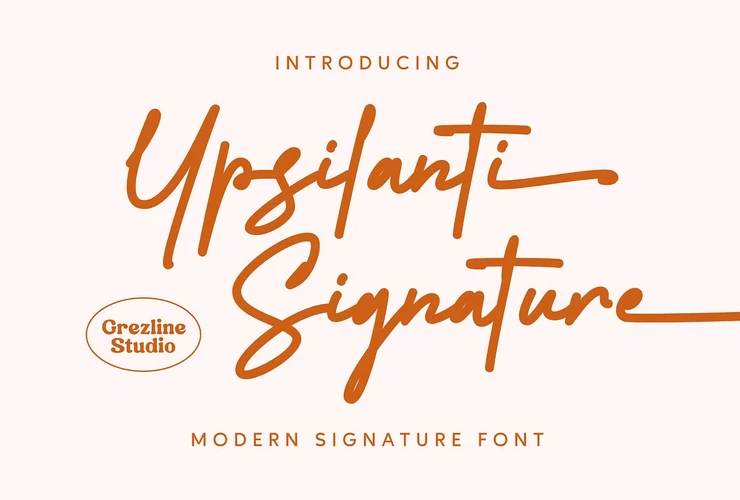
Ypsilanti Signature Font
Elevate Your Designs with Ypsilanti Signature Font
The Ypsilanti Signature Font is a modern monoline script that brings elegance and sophistication to any design project. Created with a sleek, flowing style, this font is perfect for fashion-related designs but is versatile enough to be used across various formal and creative applications.
Why Choose Ypsilanti Signature?
Ypsilanti Signature stands out with its stylish, handwritten quality, making it an excellent choice for adding a personal and elegant touch to your work. Whether you’re designing logos, invitations, packaging, or any type of branding, Ypsilanti Signature ensures your project looks polished and professional.
• Elegant Monoline Design: The smooth, continuous lines of this script font give it a refined and modern appearance, ideal for high-end fashion designs, wedding stationery, and more.
• Versatile Usage: While perfect for fashion-related projects, Ypsilanti Signature can also be applied to invitations, labels, logos, magazines, books, greeting cards, packaging, and any formal or creative advertising purpose.
• Alternate and Ligature Features: Enhance your designs with alternate characters and ligatures, adding unique flair and variation to your typography.
• Multilingual Support: With extensive language support, Ypsilanti Signature is ready for global projects, ensuring your designs can reach a broad audience.
Ideal Applications
Ypsilanti Signature is perfect for any project that demands a modern, sophisticated touch. It’s particularly well-suited for:
• Fashion Branding: Create stylish logos and branding materials that reflect elegance and luxury.
• Wedding Stationery: Design beautiful invitations, save-the-dates, and other wedding materials with a refined, personal touch.
• Formal Invitations and Greeting Cards: Make any event special with exquisite, handwritten invitations and cards.
• Product Packaging and Labels: Elevate your packaging with a font that conveys sophistication and quality.